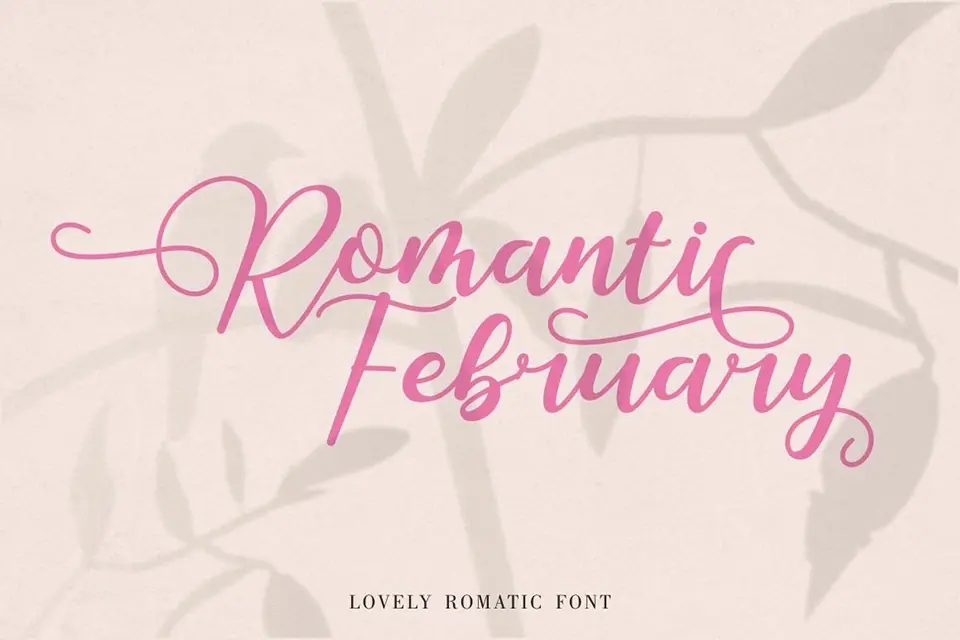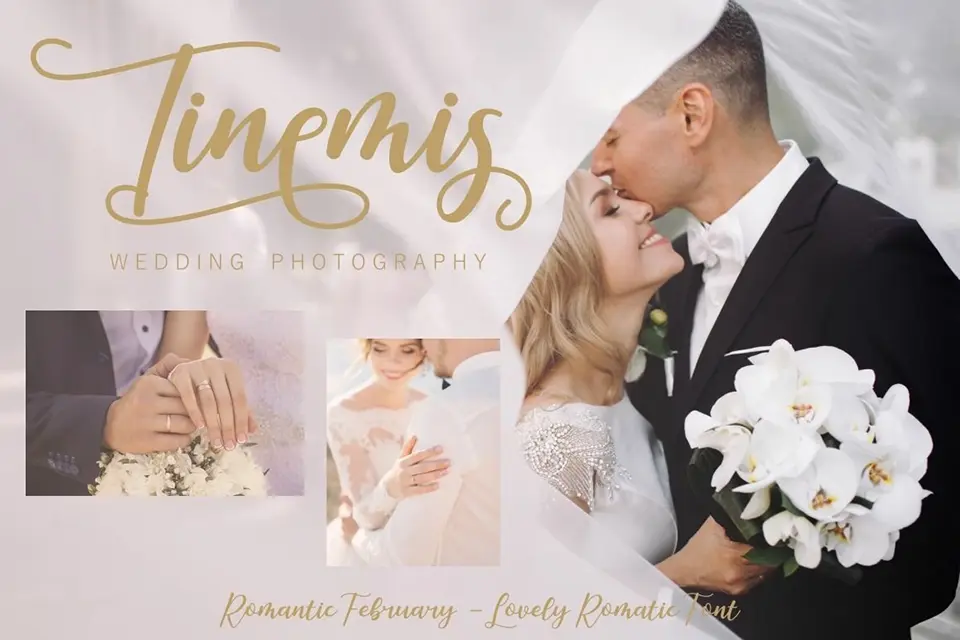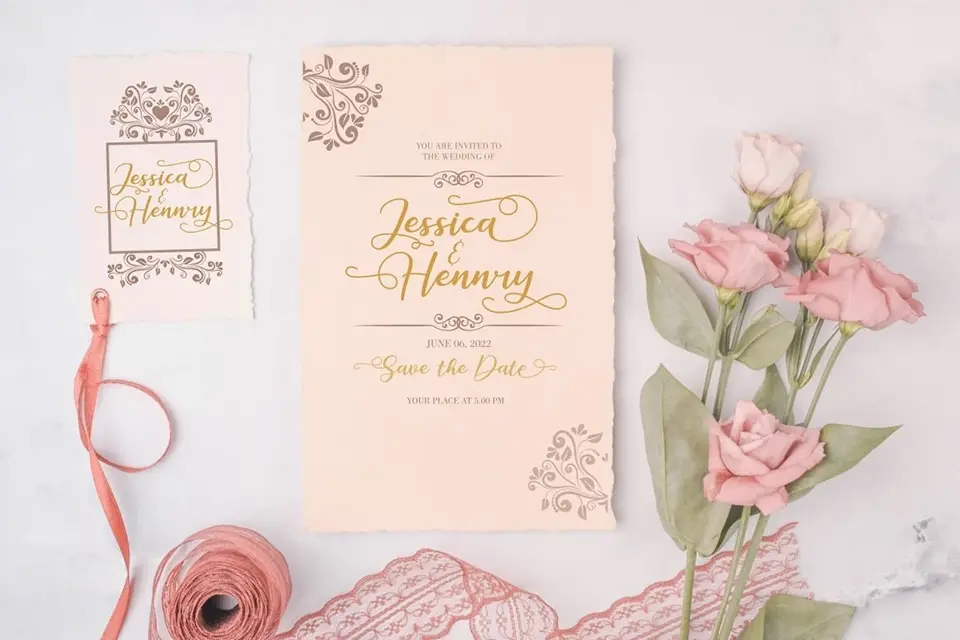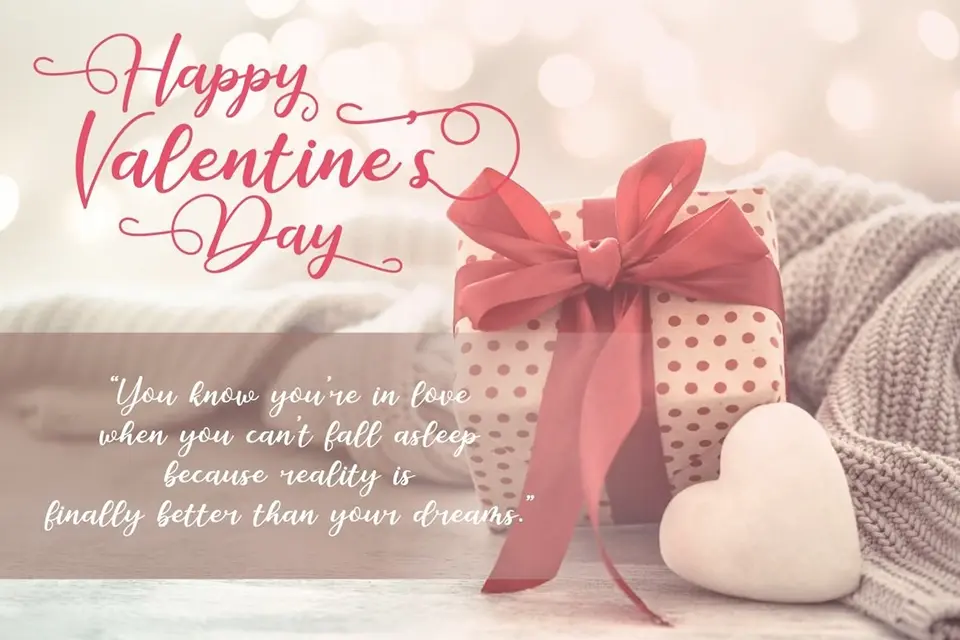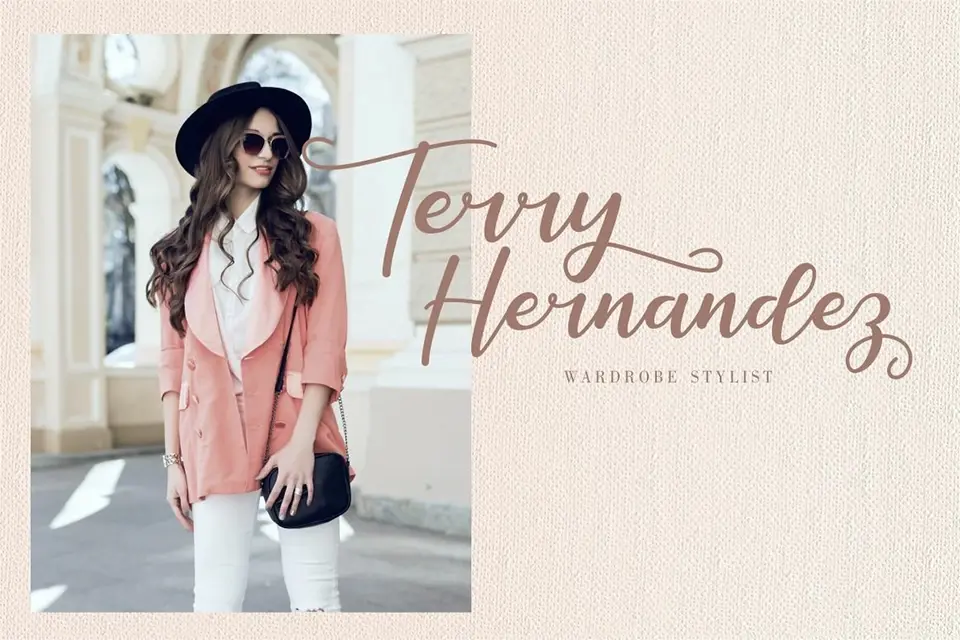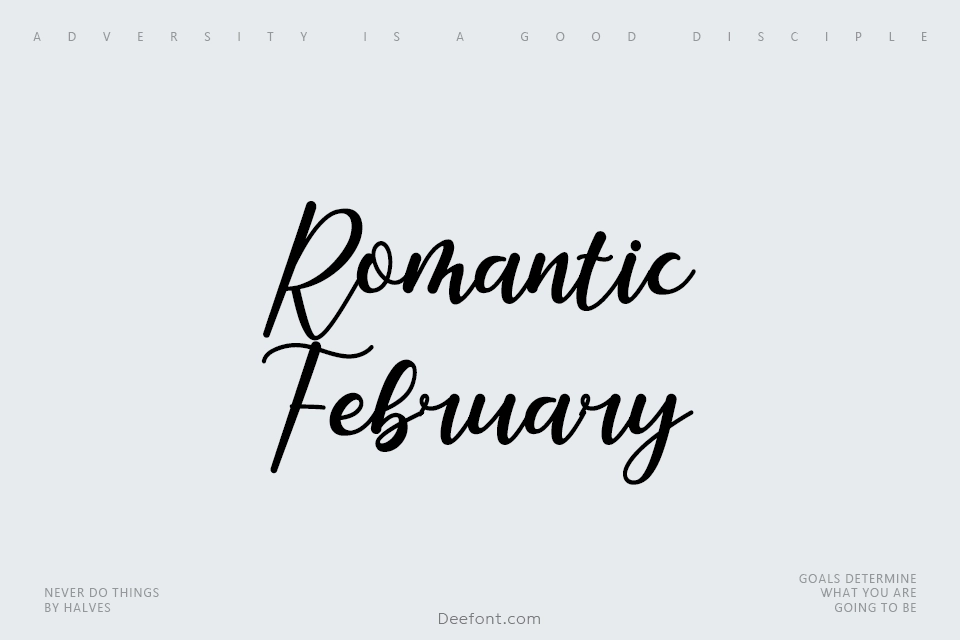
Romantic February Font
Romantic February is a beautiful romantic script font designed for special occasions. This elegant handwritten typeface features flowing letterforms and decorative swashes, perfect for valentine, wedding, invitation, heading, cover, poster, logos, quotes, and product packaging. It comes with extensive alternate characters, multilanguage support, and works beautifully for both professional and personal creative projects seeking a heartfelt and romantic touch.